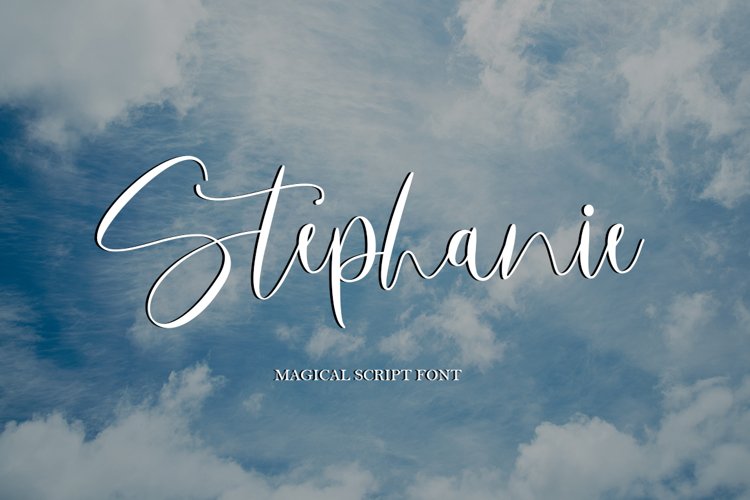
Stephanie Script
Stephanie is a magical script font carefully created with a touch of elegance. Whether you’re looking for fonts for Instagram or calligraphy scripts for DIY projects, this font will turn any creative idea into a true piece of art! Stephanie is suitable for various products such as invitations, product packaging, quotes, product design, crafter, labels, photography, watermarks, logos & branding.Everything can be accessed using software that supports Opentype, such as Adobe Indesign, Adobe CS Illustrator, Adobe Photoshop CC, and Corel Draw.